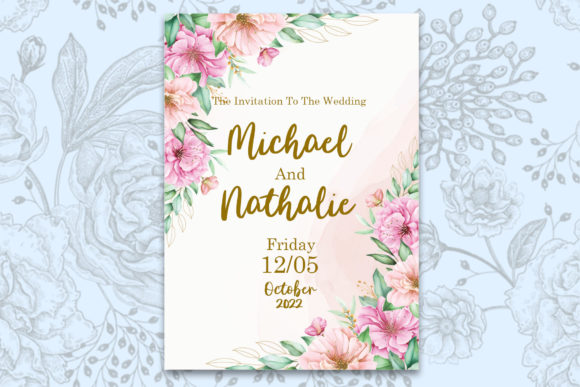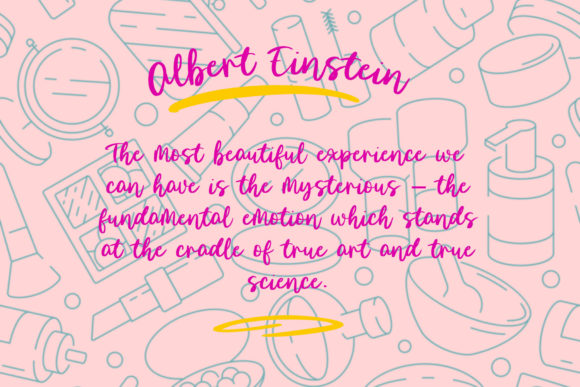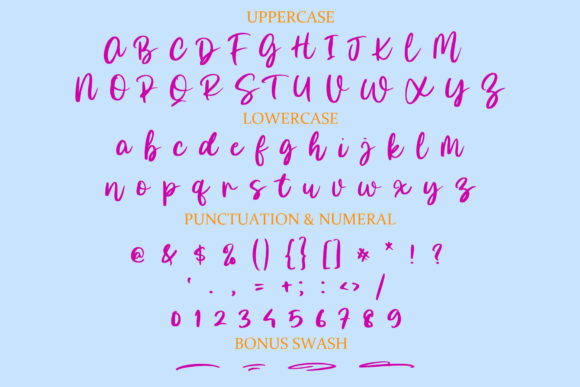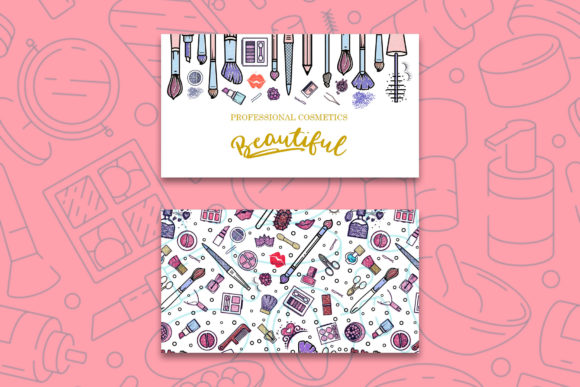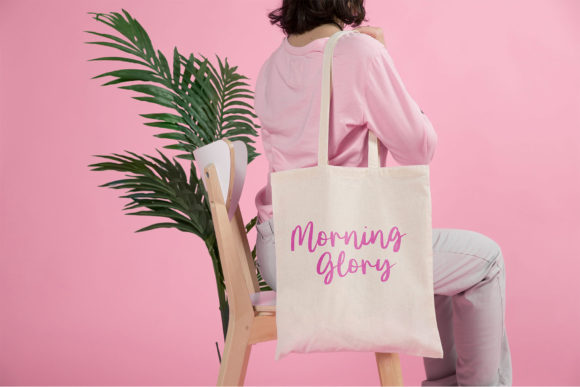
Morning Glory Font
About Morning Glory Font
Morning Glory is a sweet and flowing handwritten font. Its natural and unique style makes it incredibly fitting to a large pool of designs. The only limit is your imagination!